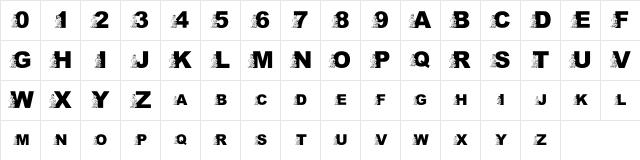
pf_injury_sports Regular
Design Context for pf_injury_sports Typeface
pf_injury_sports brings high-energy athletic personality to the page — its confident, muscular forms are built for impact.
Built for sports team identities, athletic apparel, event posters, and high-energy promotional material.
Pro Tip: pf_injury_sports thrives on contrast — try it large, bold, and tight against a clean background for maximum visual impact.